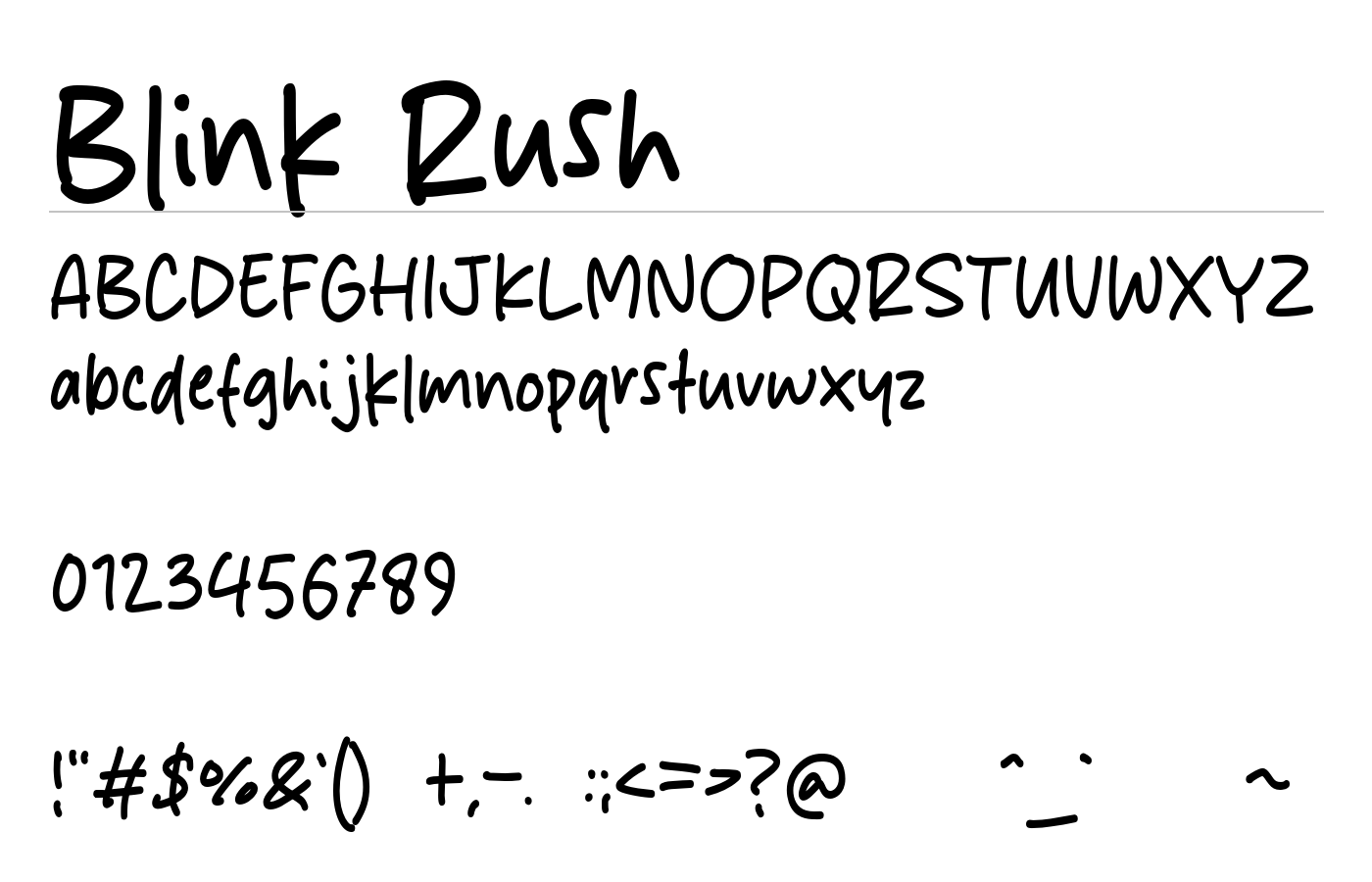
Blink Rush is a casual, handwritten sans serif font with a playful and friendly vibe. Its irregular strokes and slightly rounded edges give it an informal, approachable feel, making it perfect for lively, creative projects like posters, children’s books, or social media graphics. This font’s energetic personality adds a personal touch to designs that want to communicate warmth and spontaneity.
Blink Rush Font
About Blink Rush Font
| Font family | Blink Rush Font |